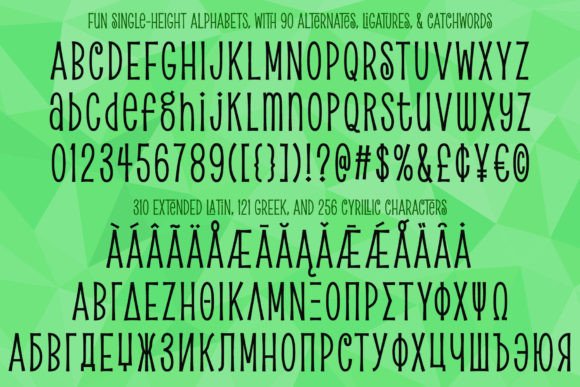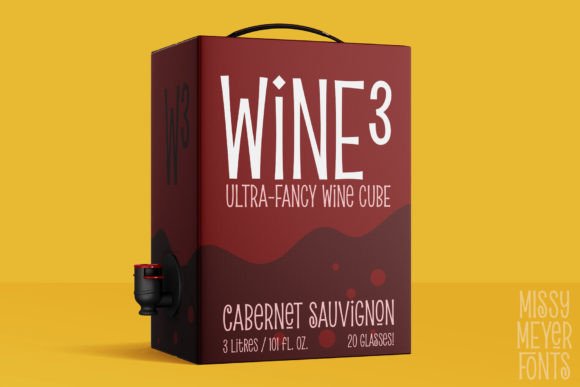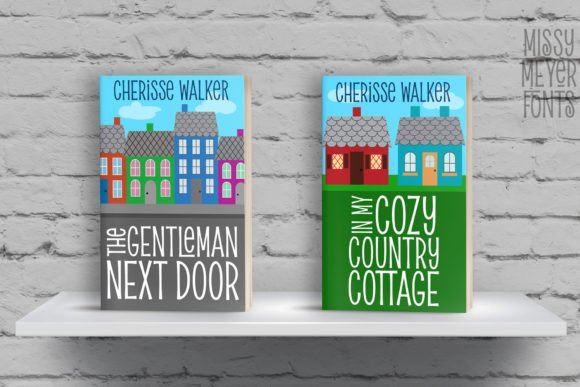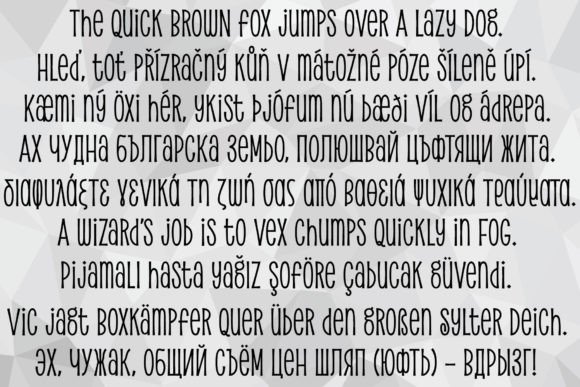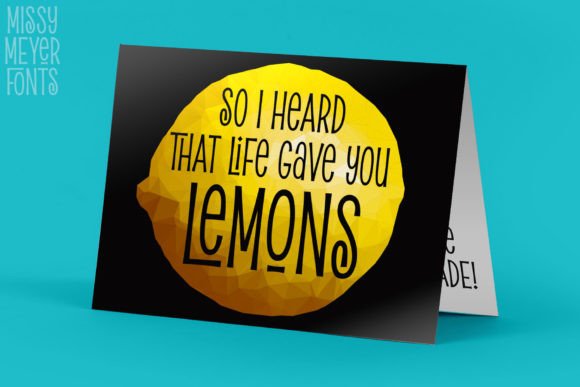
Introduction to Pickled Limes Font
Do you remember that moment when a simple line sparks a creative idea? For me, it all started with the letter S. I drew it, I liked it, and I based a font around it – Pickled Limes. This unique font has been a labor of love, crafted with precision to deliver ultra-sharp lines, smooth curves, and a quirky character mix that makes it a joy to use.
As a valuable design resource, Pickled Limes Font offers more than just its clean and elegant appearance. With over 1000 characters, including Extended Latin, Cyrillic, and Greek characters, it’s perfect for designers working on branding projects, logos, or crafting work that requires a high level of language support. Whether you’re looking for a free download or a high-quality font to elevate your creative project, Pickled Limes Font is an excellent choice.
Key Features of Pickled Limes Font
- Unique, hand-drawn design ideal for creative projects and design resources
- Perfect for use in digital and print design, from posters to branding materials
Honest Review: Pickled Limes Font
As a designer, I’ve had the chance to work with various fonts, and I’m excited to share my thoughts on the Pickled Limes Font. I downloaded it for free, which was a great starting point, and I was immediately impressed by its high quality and unique design. The font has a transparent background, making it easy to integrate into any design project.
Here are some aspects that work well with the Pickled Limes Font: ✨
- Unique and creative style that adds a personal touch to designs
- High-quality design that’s suitable for both print and digital projects
- Easy to use and integrate into various design applications
However, there are some limitations to consider: ⚠️
- The font may not be suitable for small text sizes due to its intricate design
Overall, I’m impressed with the Pickled Limes Font, and I would recommend it to designers looking for a unique and high-quality design resource. While it may have some limitations, its creative style and high-quality design make it a valuable addition to any design project.
To get the most out of the Pickled Limes Font, use it on a transparent background to create a unique and eye-catching design. Experiment with different font sizes and styles to add depth and interest to your design.
The Pickled Limes Font is perfect for creative projects, including graphic designs, social media graphics, presentations, and documents. Its high-quality design makes it ideal for designers who need a unique and creative font for their projects.